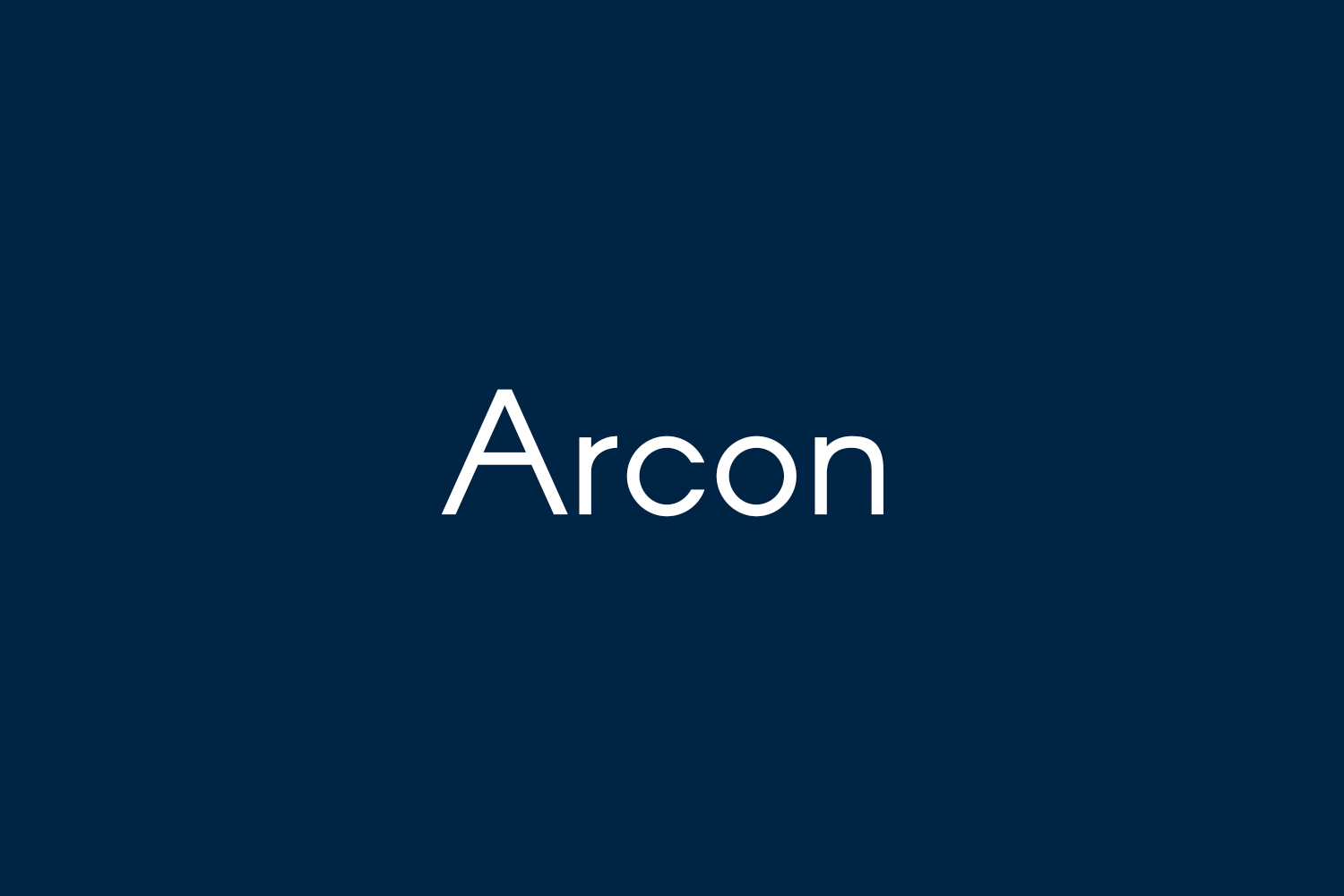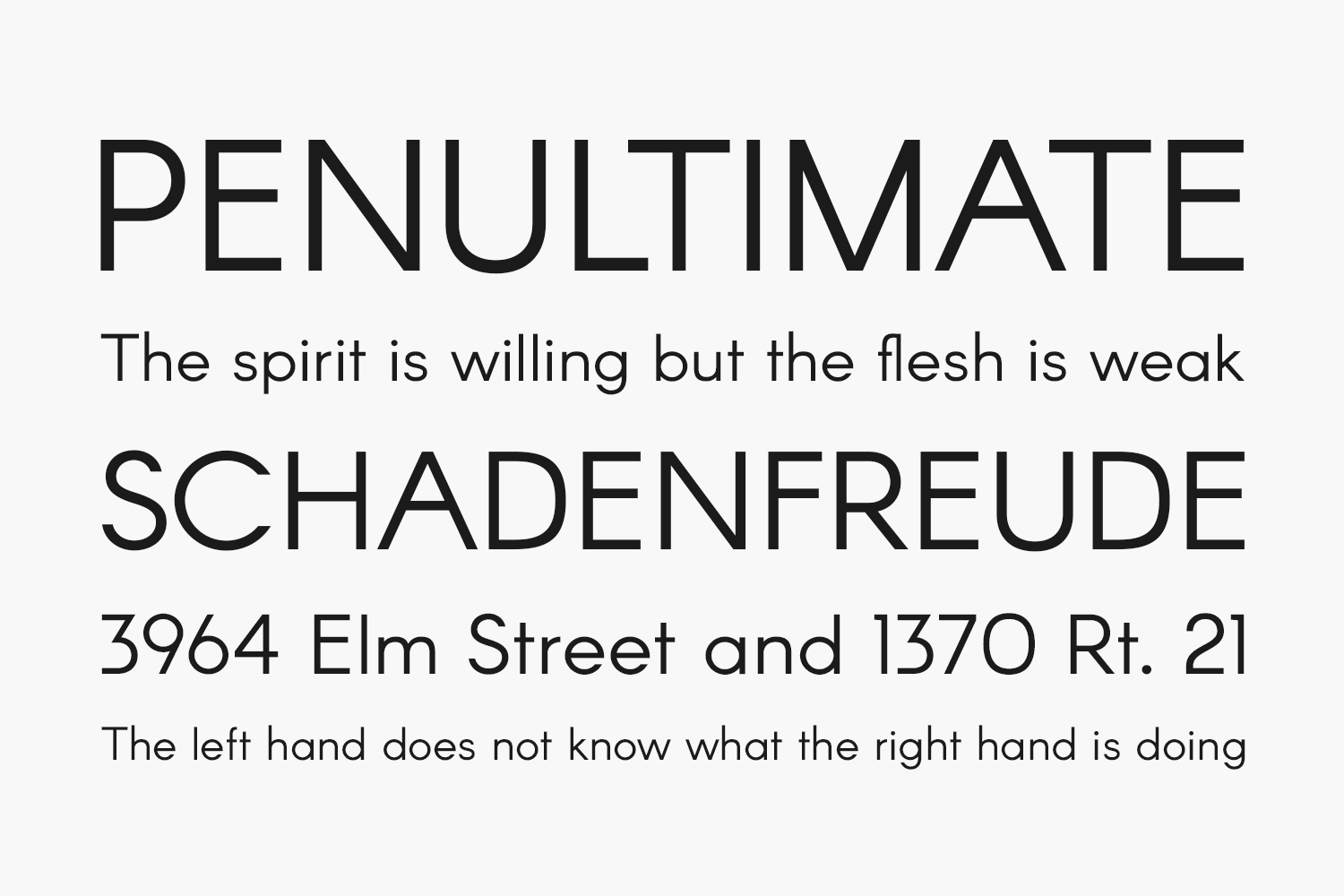
Arcon Free Font Family is developed by Zarthwork and have a soft with a pleasant style and smooth edges.. They are freely distributed under the SIL Open Font License.
Designed by Zarthwork
Arcon Regular The quick brown fox jumps over the lazy dog
Arcon Rounded Regular The quick brown fox jumps over the lazy dog